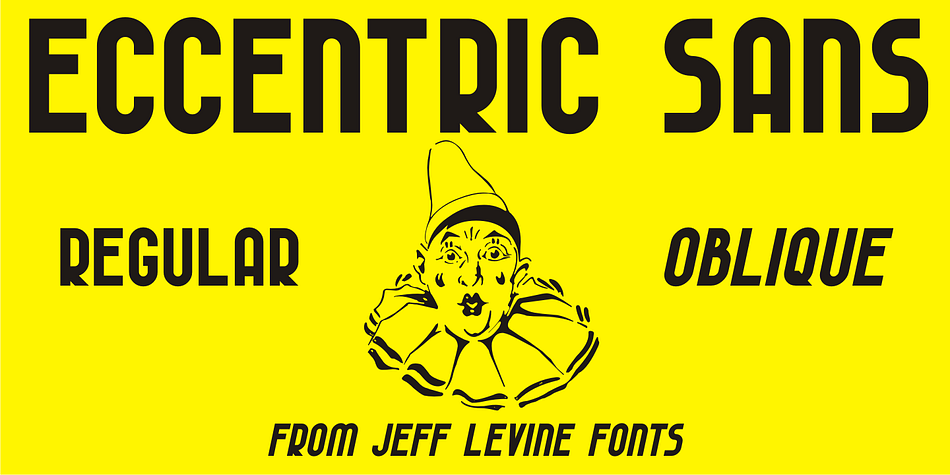
Designed by Jeff Levine, Eccentric Sans JNL is a display sans font family. This typeface has two styles and was published by Jeff Levine Fonts.
An instructional page from a vintage lettering book displayed online showed the construction of an Art Deco sans design with varying widths and stylized character shapes. This was the basis for Eccentric Sans JNL, which is available in both regular and oblique versions.